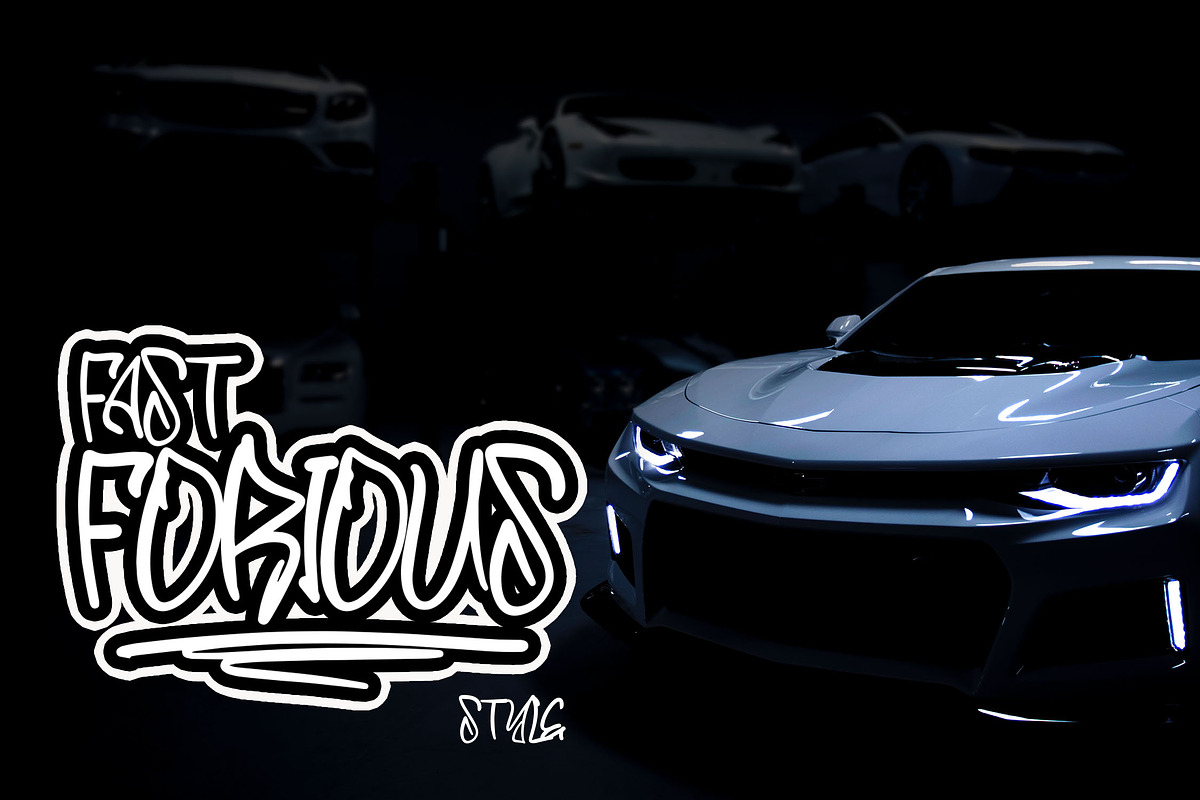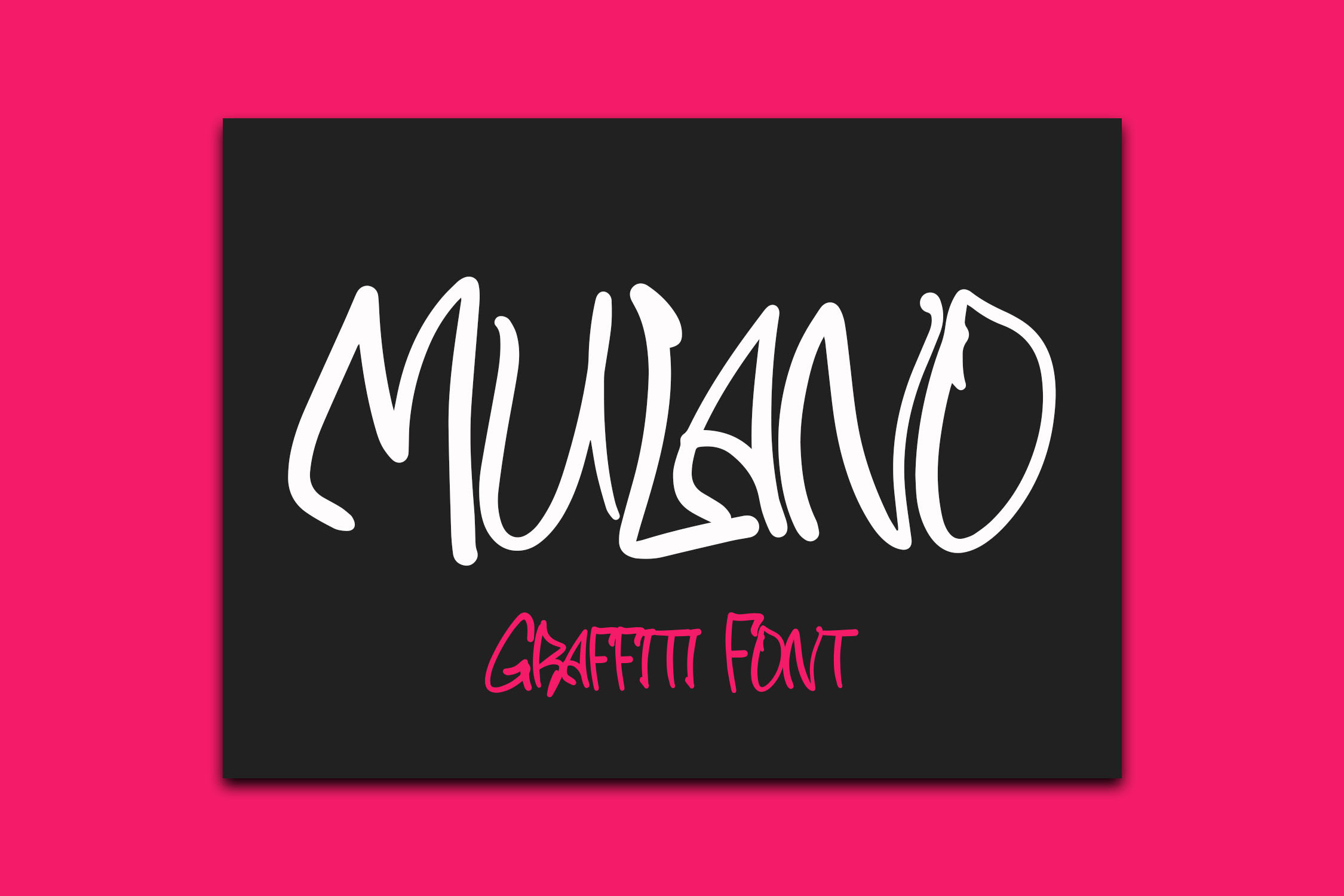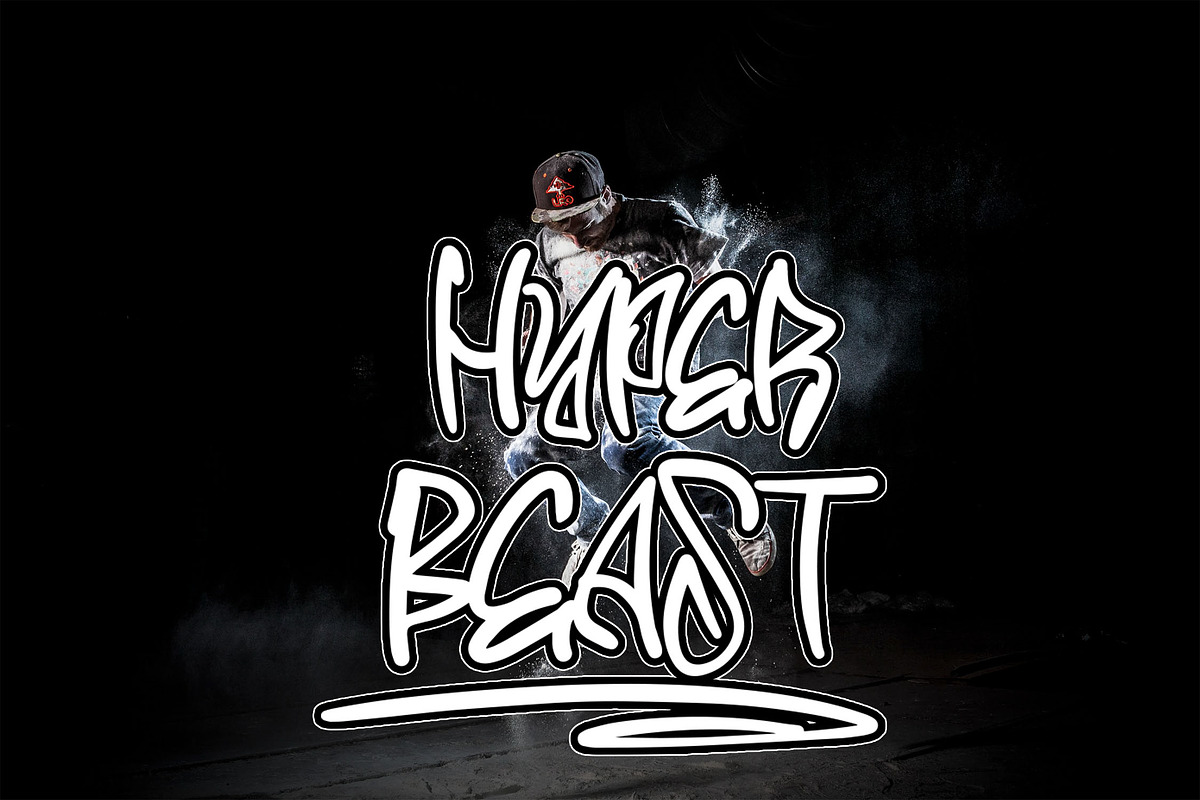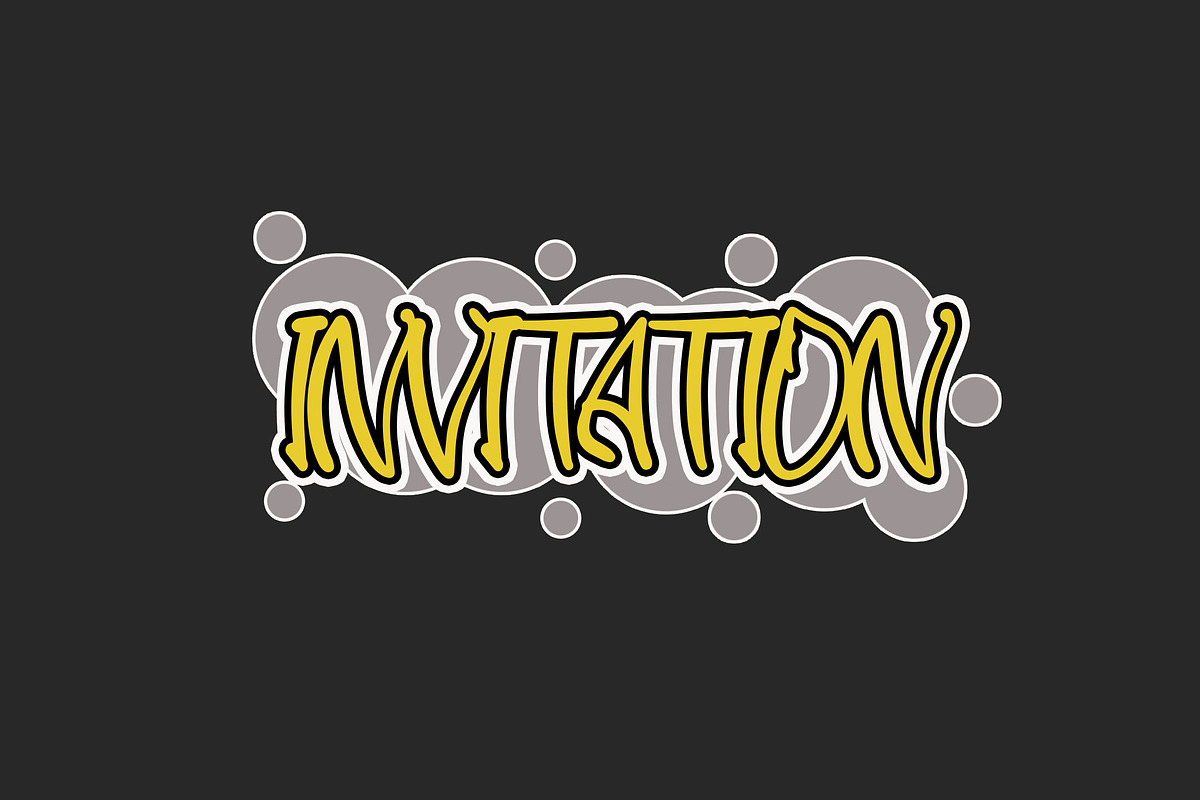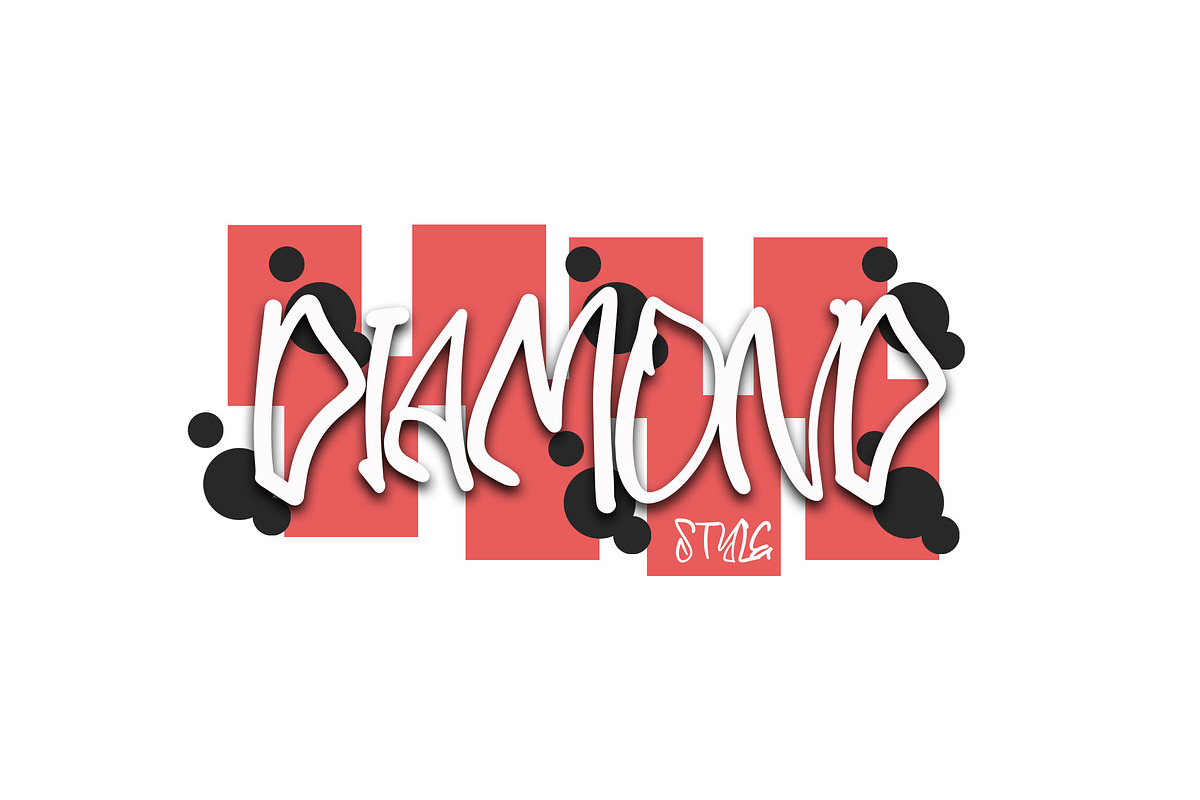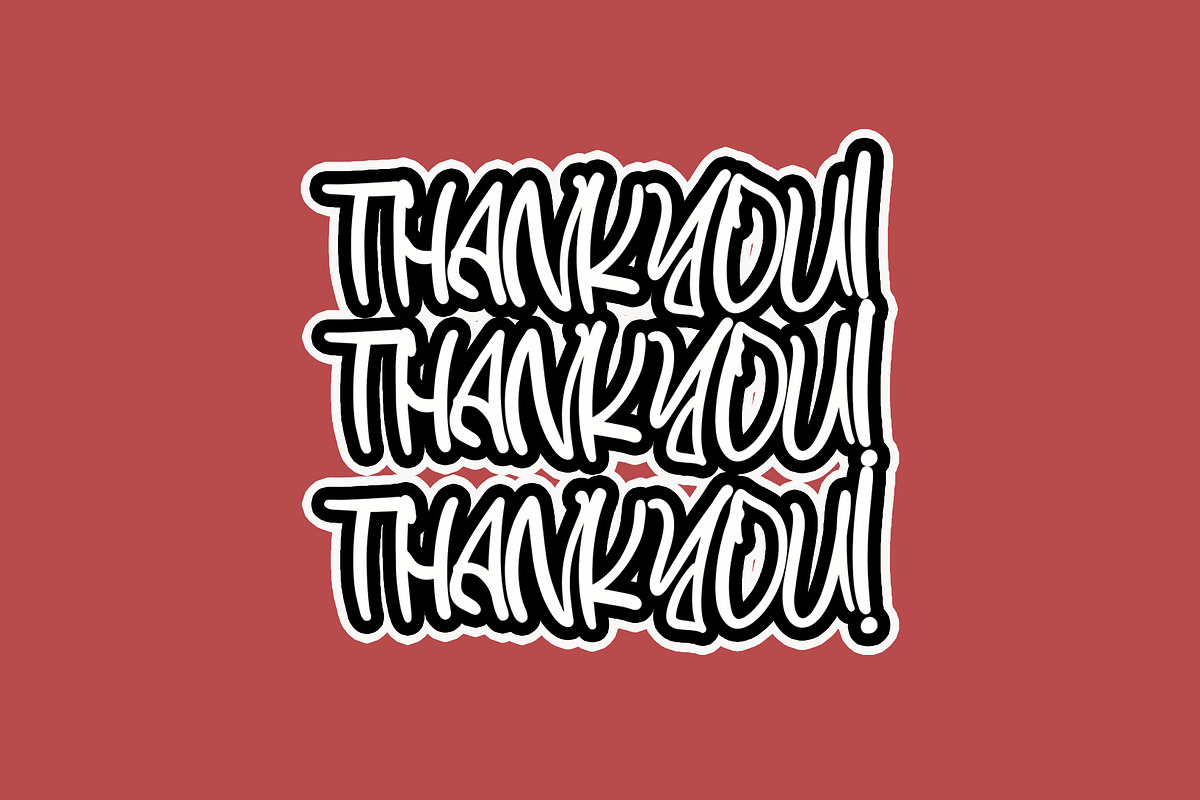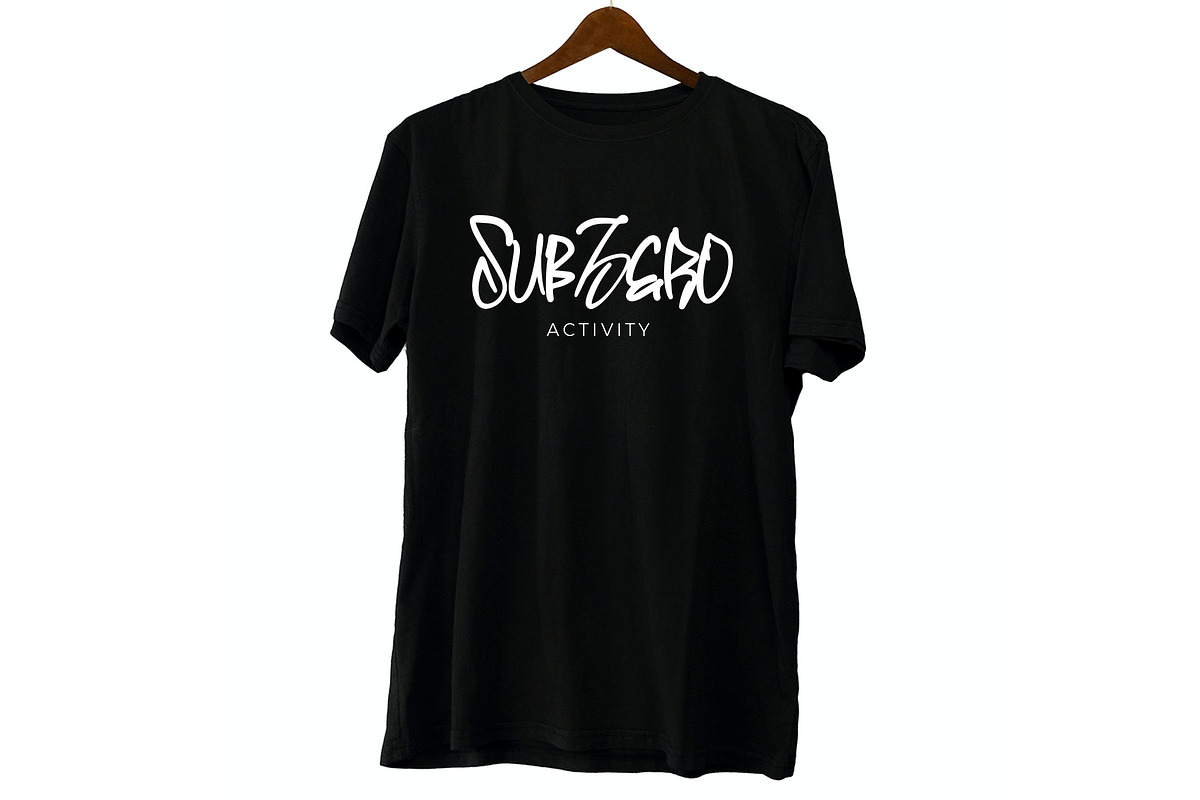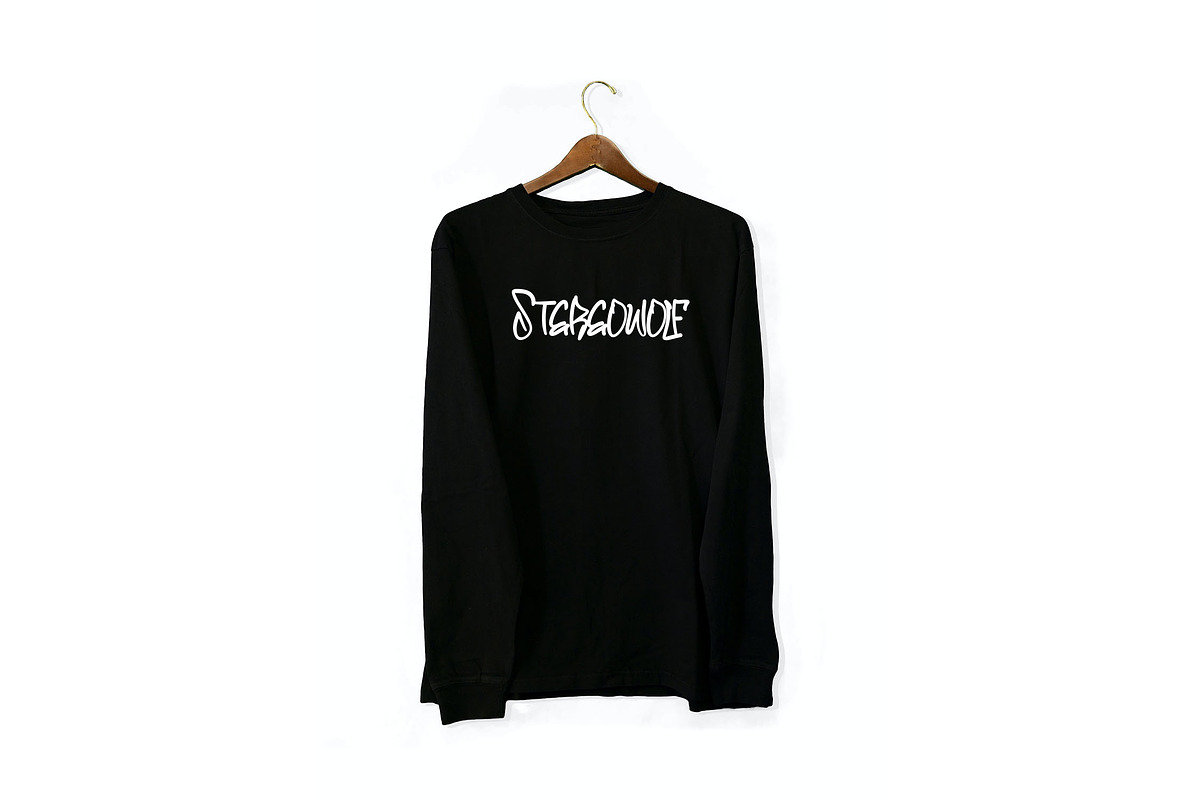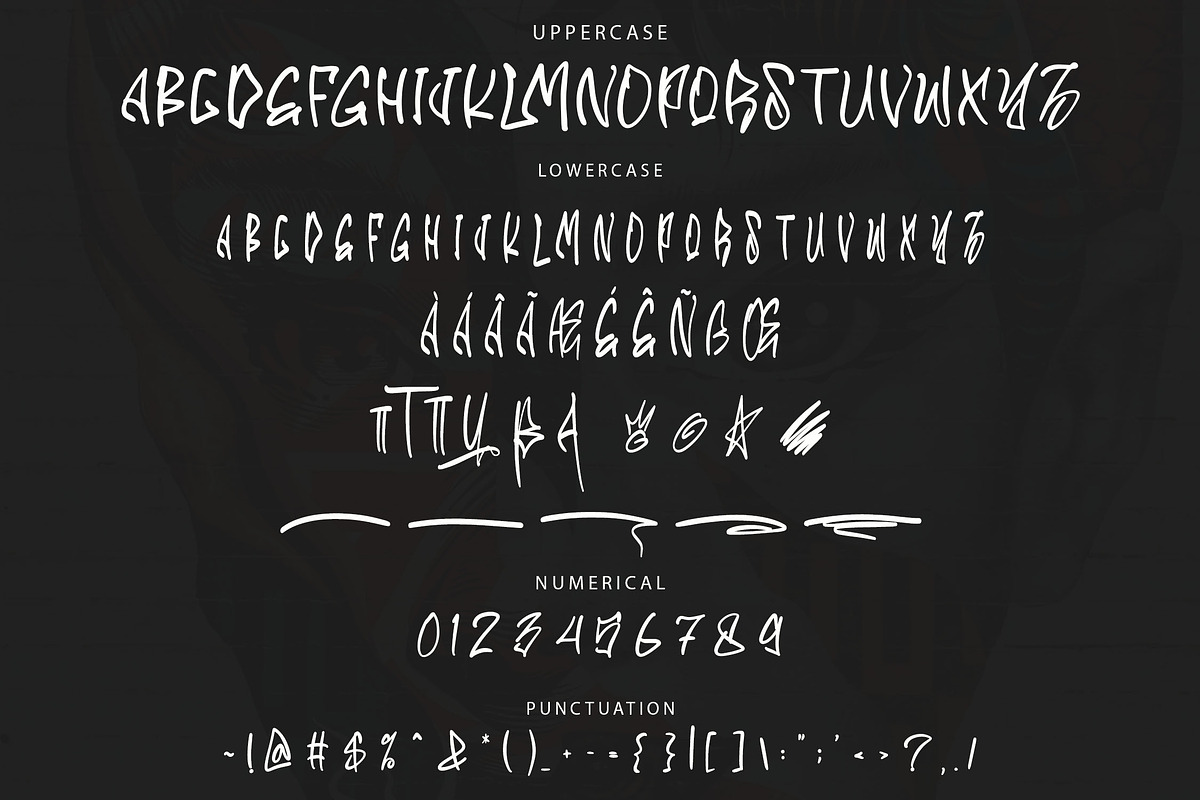
MULANO Graffiti Font
MULANO is a bold graffiti font with a natural handbrush style, perfect for adding an urban, artistic flair to your designs. With its unique and energetic character shapes, MULANO is ideal for logos, street art, apparel design, posters, and other creative projects. This font brings a raw and expressive look that will make your designs stand out.
- Ligatures: Smooth, connected letterforms for a seamless graffiti style.
- Stylistic Alternates: Personalize your text with alternate characters.
- Swashes: Add bold, sweeping strokes to enhance your design.
- Multilingual Support: Works across various languages and alphabets.